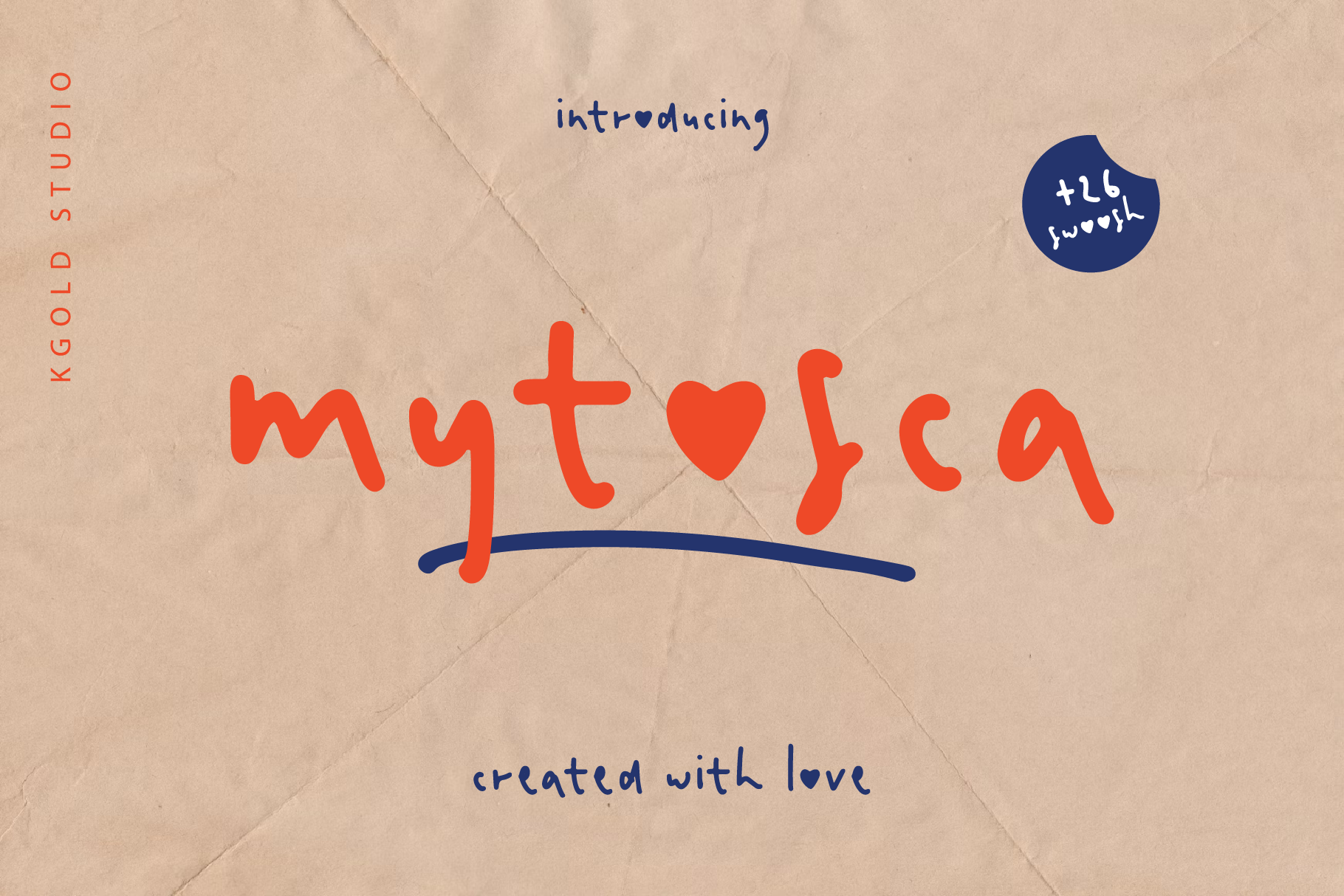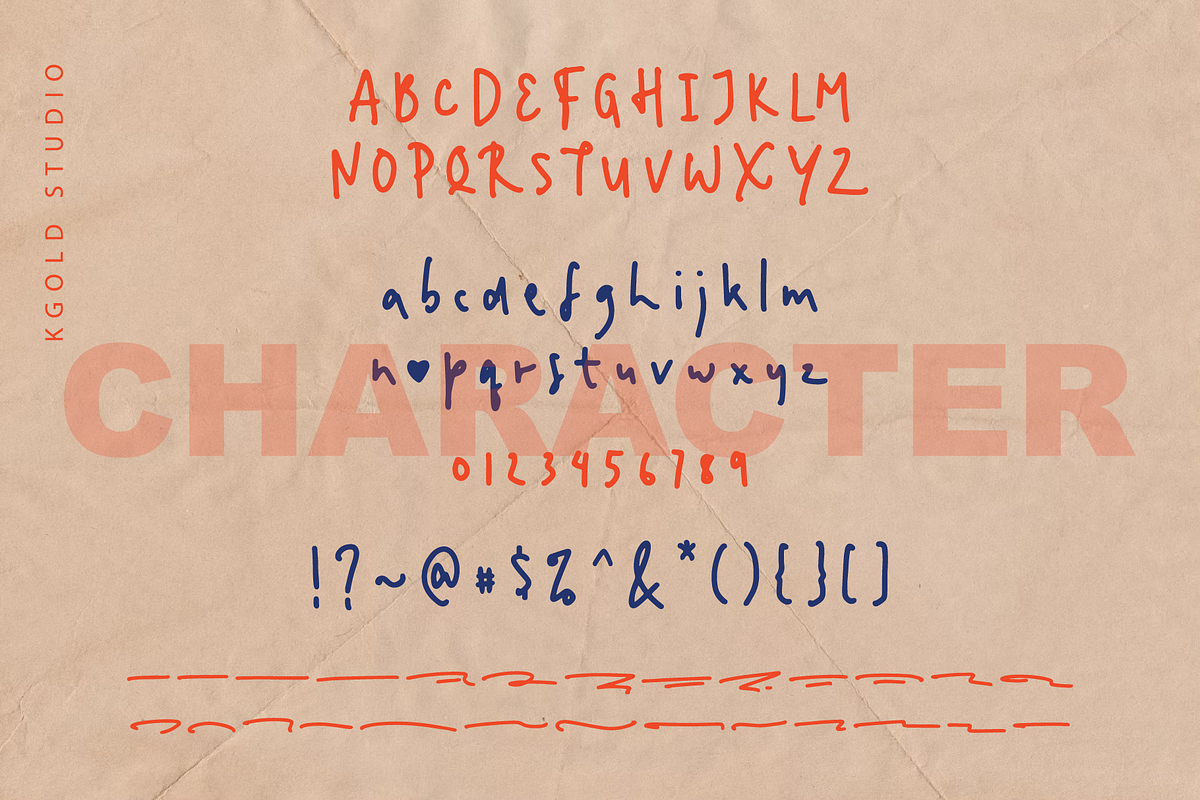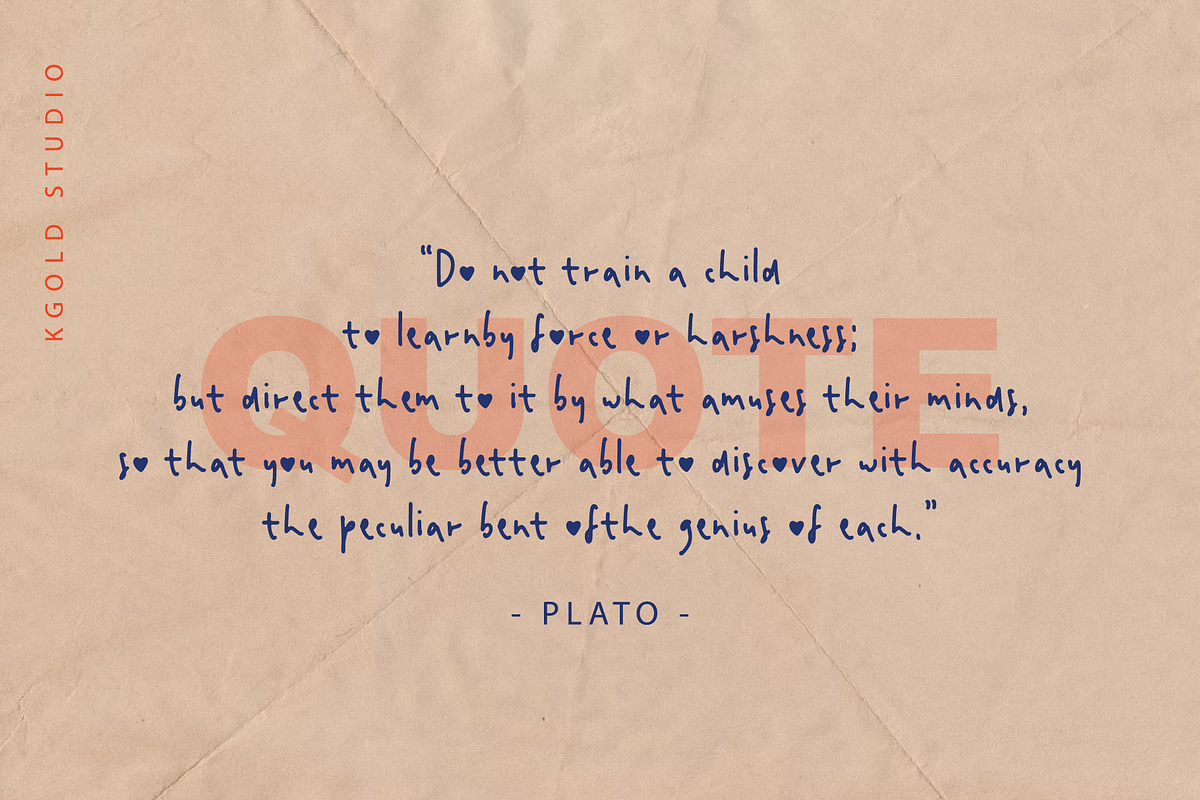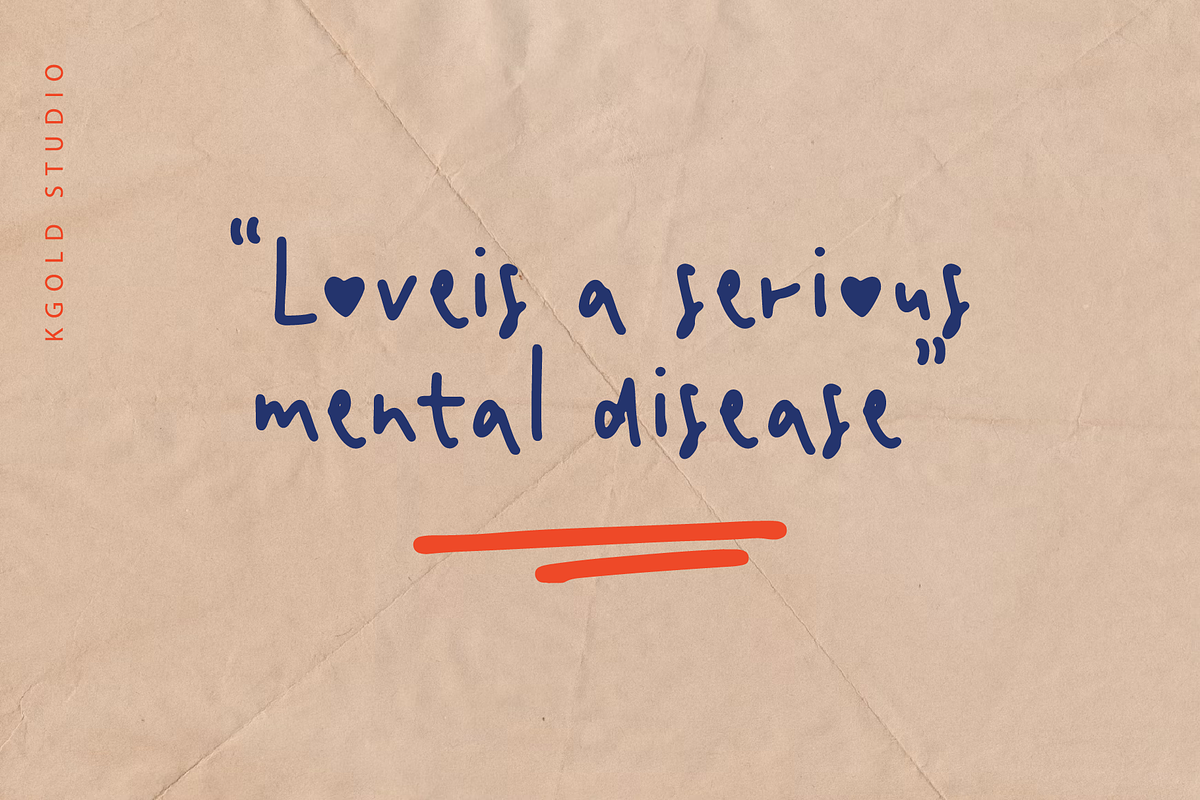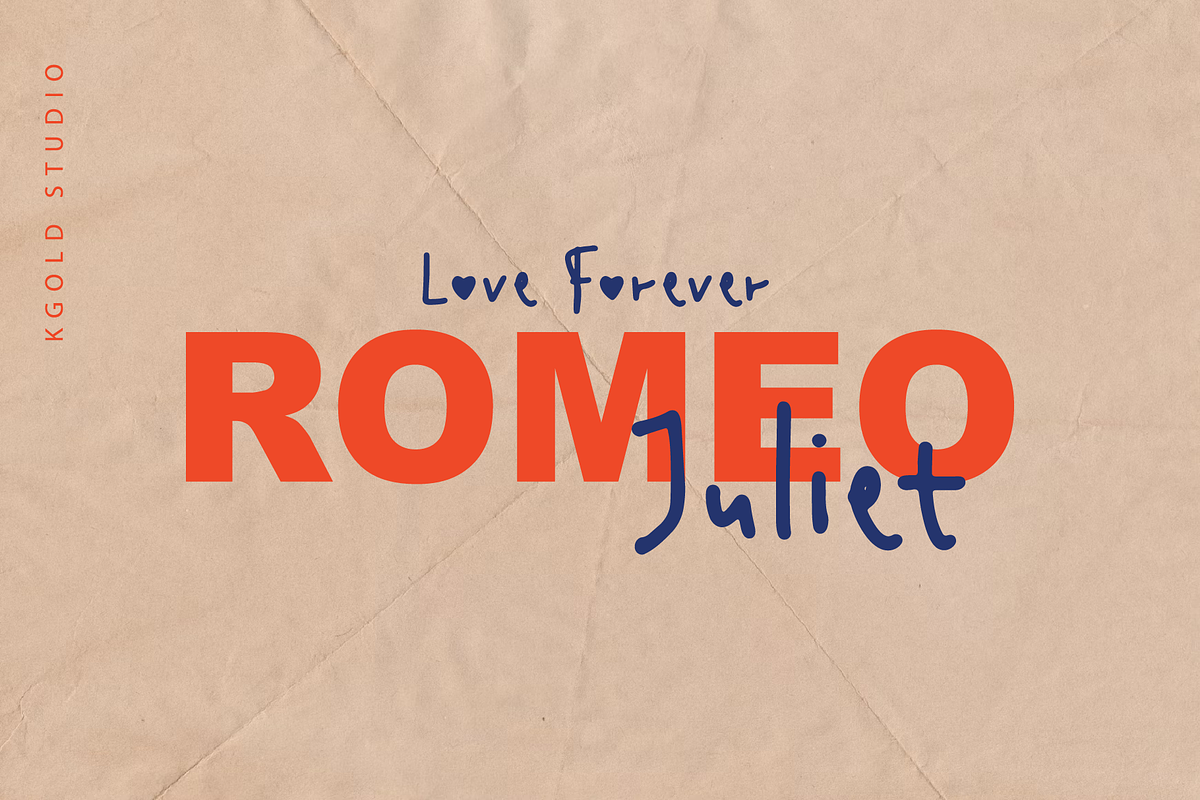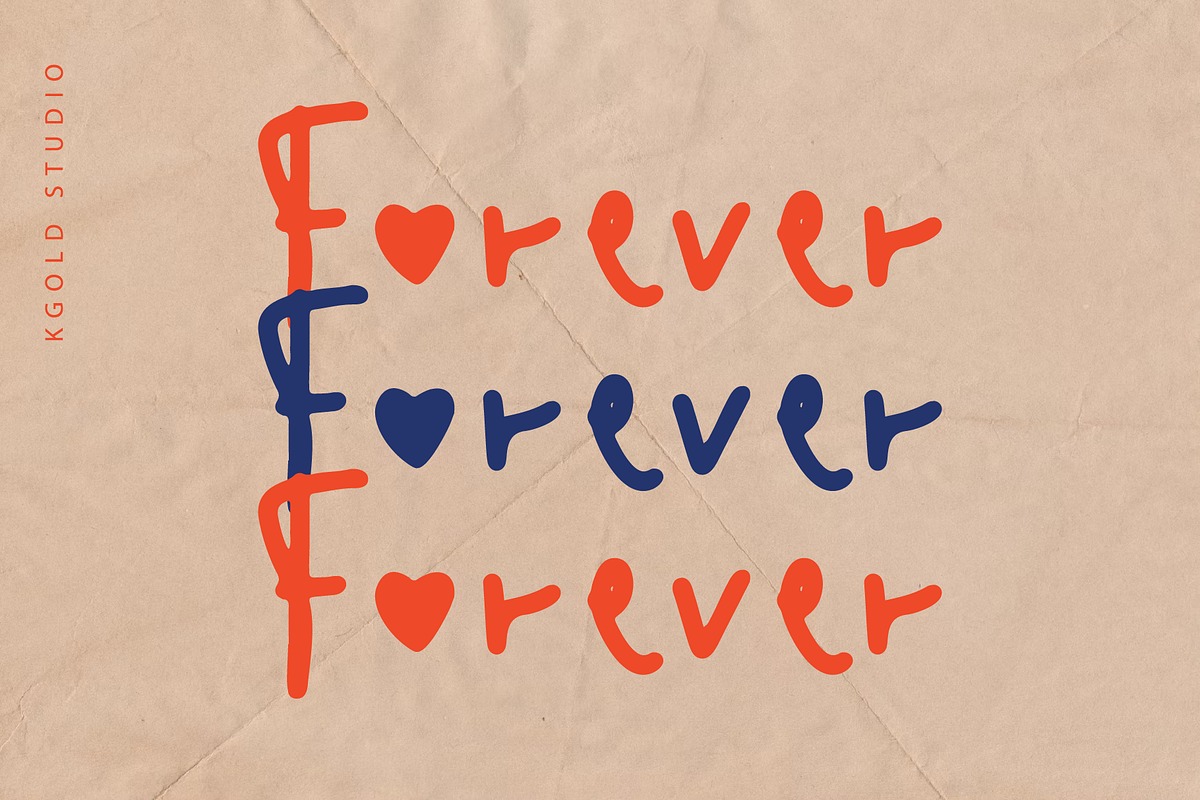
Mytosca - Handwritten Font
Mytosca is a stunning handwritten font designed to bring a personal and artistic touch to your creative projects. With its smooth, natural strokes and elegant swoosh details, Mytosca effortlessly combines modern charm with timeless handwritten style.
- Authentic Handwritten Style: Each character is crafted with care to mimic the natural flow of handwriting.
- Graceful Swooshes: Beautiful swoosh elements are included to enhance your text and give it a unique, decorative flair.
- Versatile Use: Perfect for logos, wedding invitations, greeting cards, branding, social media, and more!
- Multilingual Support: Comes with multilingual characters to suit a wide range of projects across different languages.
- Full character set and OpenType features
- Multi-language support
Why Choose Mytosca?
Mytosca is more than just a font—it's a tool for storytelling. Its elegant and expressive strokes make it ideal for designs that need a personal, heartfelt touch. Whether you're creating for business or personal use, Mytosca adds a touch of sophistication and individuality.